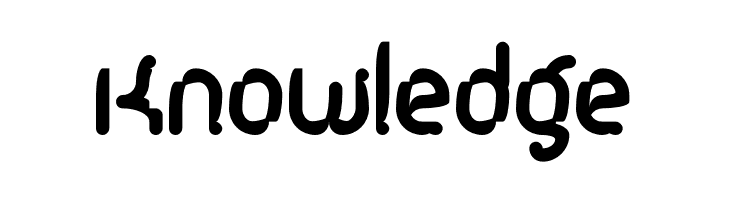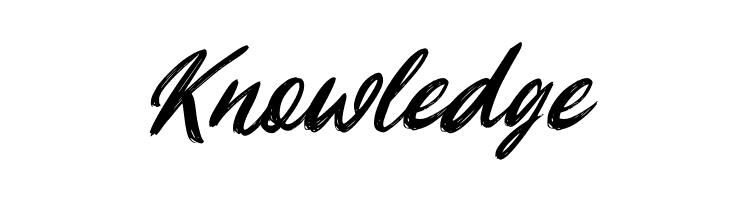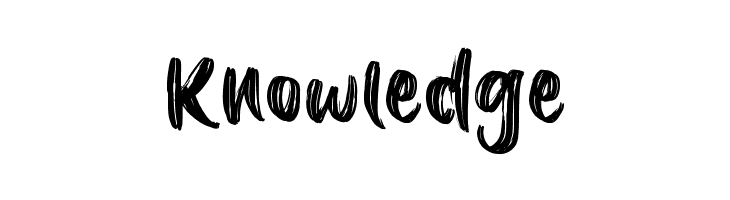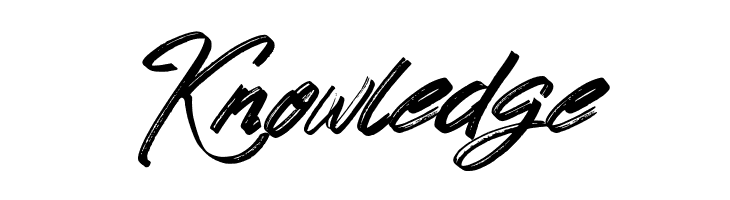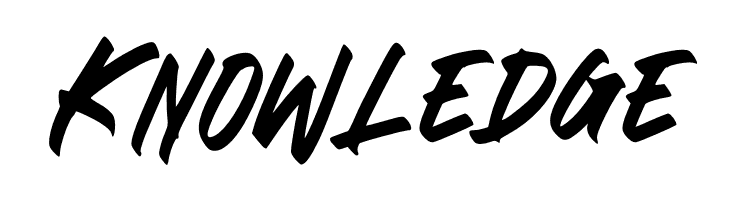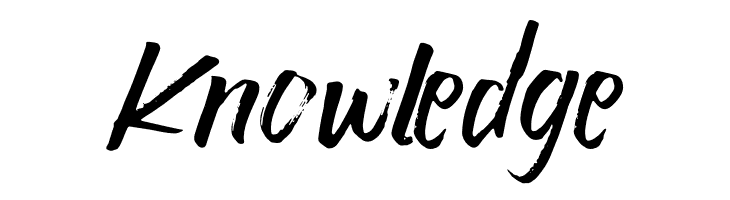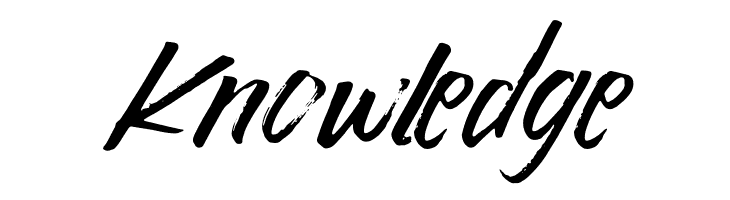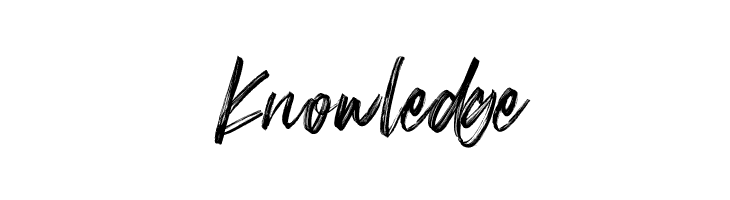
• KD Algae Brush Regular
A playful, brush-style font with rounded, organic shapes and a hand-drawn feel.
• Mightam Brush
A dynamic and fluid brush script font with elegant, flowing letterforms.
• Playbrush Tilted
A bold, brush-style script font with dynamic, slanted characters.
• Hotte Brush Swash
A dynamic brush-style font with artistic swashes and a hand-drawn appearance.
• Gosber Brush
A bold, expressive brush-style font with a dynamic, hand-painted look.
• Hong Kong Script Brush
A dynamic brush script font with bold, fluid strokes and a lively, hand-drawn quality.
• BLACK BRUSH Italic
A bold, brush-style font with dynamic, slanted strokes and a handwritten feel.
• Rocky Brush
A bold, brush-style font with dynamic and expressive strokes.
• Rocky Brush Italic
A bold, brush-style italic font with dynamic, hand-painted strokes.
• ChesterBrush
A dynamic brush script font with fluid, hand-painted strokes.
• Mist Sunshine Brush Free
A bold, brush-style font with dynamic, hand-painted strokes.
• Better Brights Brush Regular
A bold, brush-style font with dynamic, hand-painted strokes.
• Dartho Brush Free Font Regular
A bold, dynamic brush-style font with expressive strokes and a modern flair.
• Kreakers Brush
A bold, expressive brush script font with dynamic strokes and a handcrafted feel.
• HorribleBrush
A bold, brush-style font with a grungy, distressed appearance.
• Boldace Brush
A bold, brush-style font with dynamic, textured strokes.
• BE-WILD Brush Font
A bold, brush-stroke font with a wild, artistic style.
• Butterflies Brush
A dynamic brush script font with expressive, flowing strokes.
• The Absolute Brush
A bold, expressive brush-style font with a hand-painted appearance.
• Rikabrush
A bold, expressive brush-style font with dynamic, hand-painted strokes.
• Awesome Brush